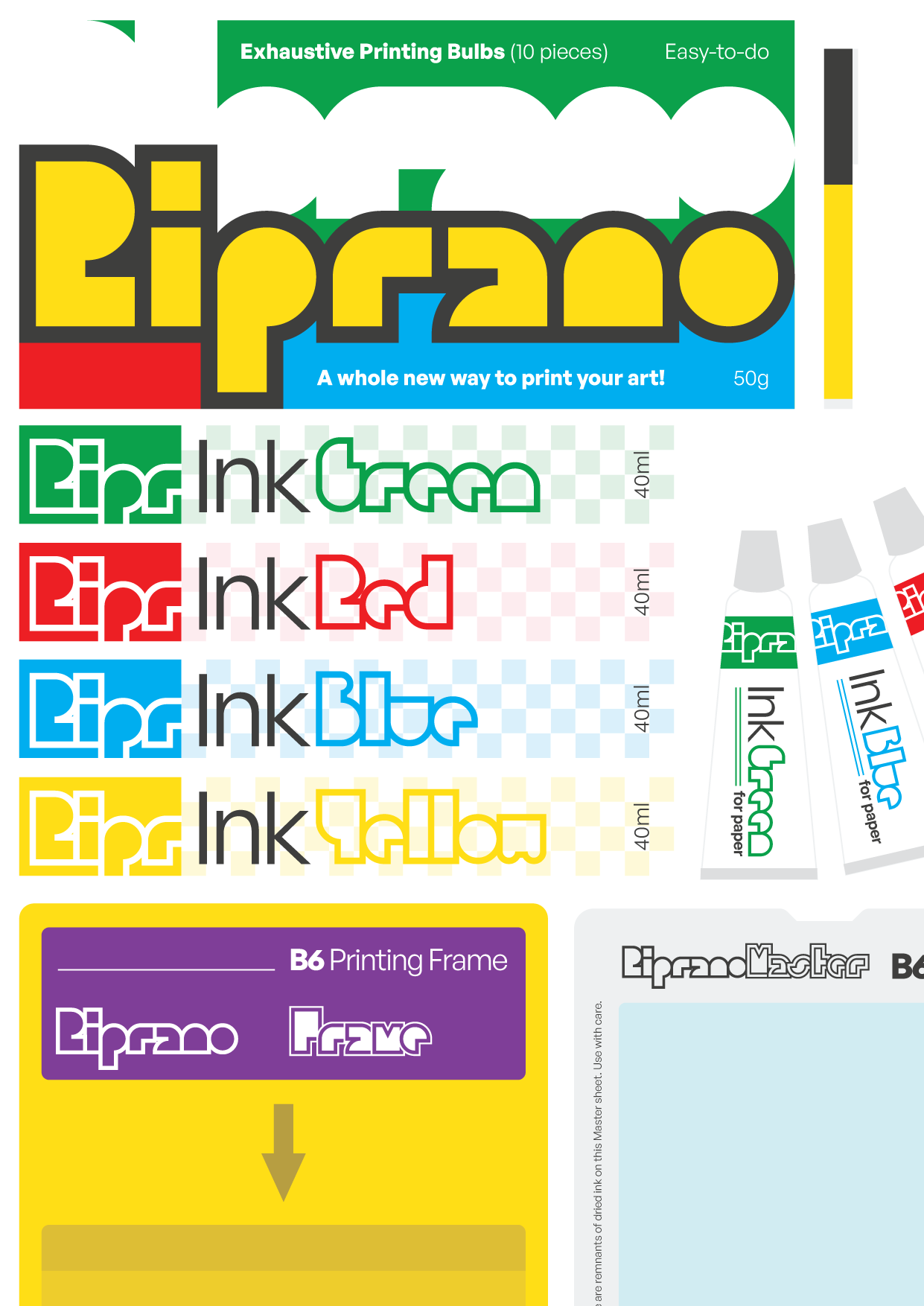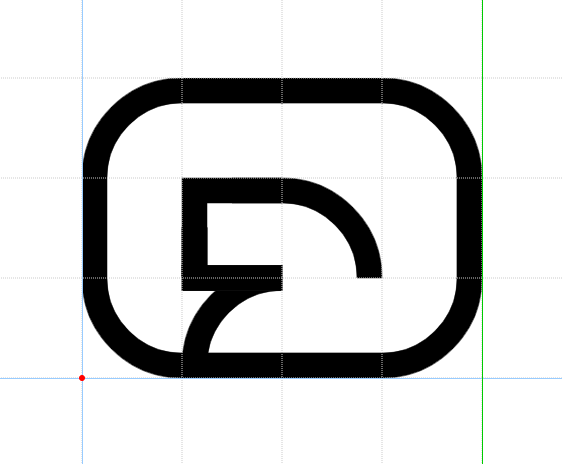
• A different attempt at recreating the lettering of the RISO logo and inspired by the custom type featured in a Gaji periodical by Corners Studio.
Very good. Some gylphs are similar to Riverside Drive and foryour understanding you can see the revival or digitization, Is simple but I like it. 10/10.
@Jeyco: Thanks! That's a nice find! Funny how their 't' was interpreted by me as 'k' over here, ahaha.
Would something like this work better for the at sign?
I'm wondering how you made that